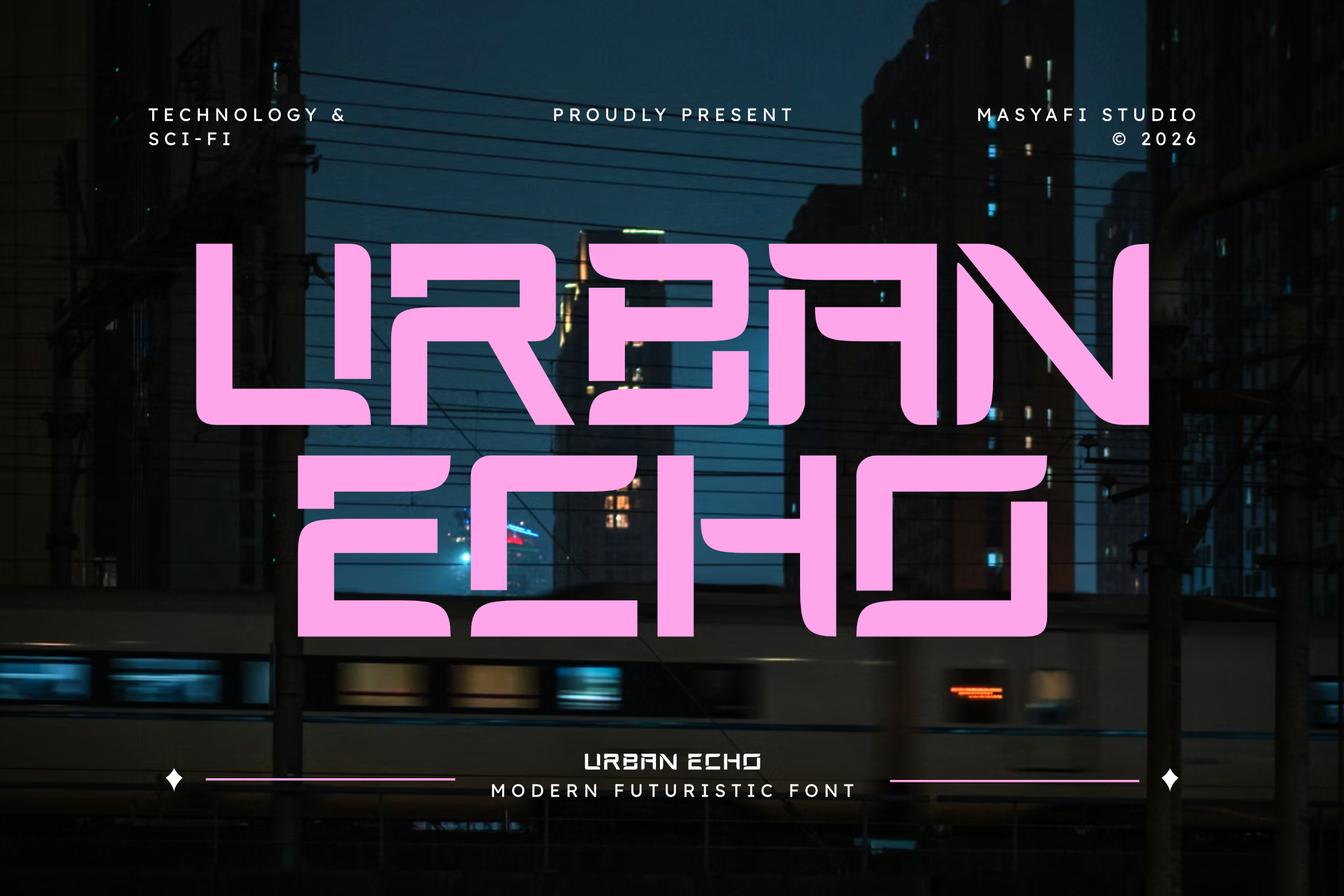
Urban Echo | Modern Futuristic Font
Step into the future with Urban Echo, a modern futuristic typeface from Masyafi Studio. Inspired by the sleek lines of metropolitan architecture and the digital glow of smart cities, Urban Echo is crafted for designers who want to push the boundaries of contemporary typography.
Urban Echo features a sophisticated "tech-stencil" look, where every curve and cut is meticulously placed to create a rhythmic, high-tech flow. It is the perfect asset for creating immersive gaming identities, sci-fi editorial layouts, futuristic app interfaces, and bold automotive branding. Whether you're designing for a tech startup or a late-night urban fashion brand, Urban Echo delivers the perfect "echo" of the future.
- Technology & AI Branding: Innovation-focused logos and web headers.
- Gaming & eSports: High-impact streaming overlays and team identities.
- Sci-Fi & Fiction: Movie posters, book covers, and cinematic titles.
- Urban Fashion: Modern streetwear graphics and apparel labels.